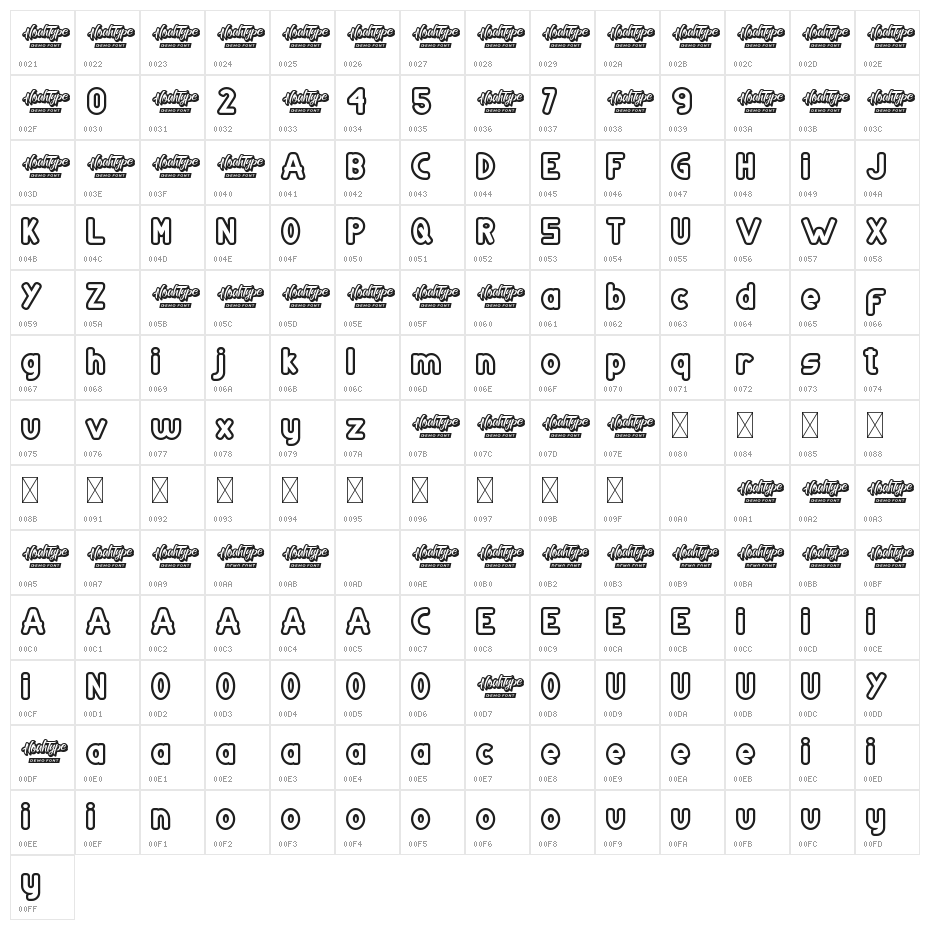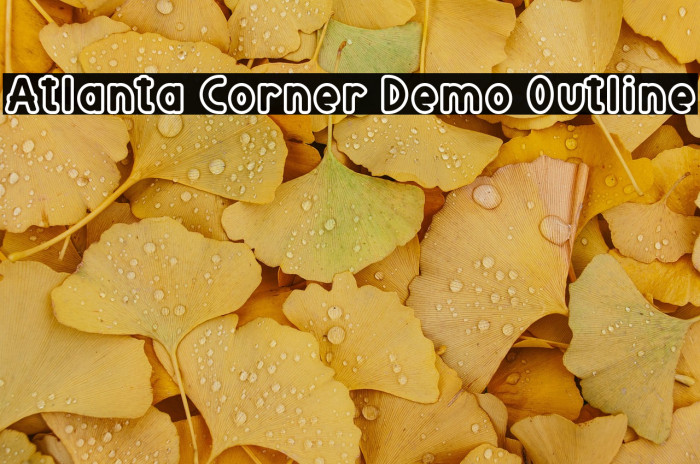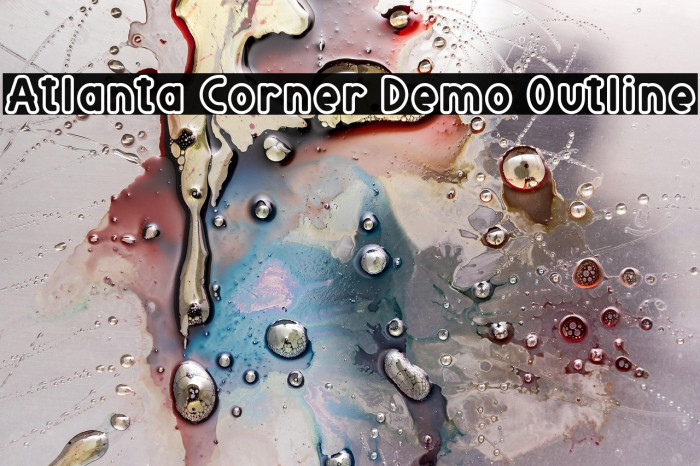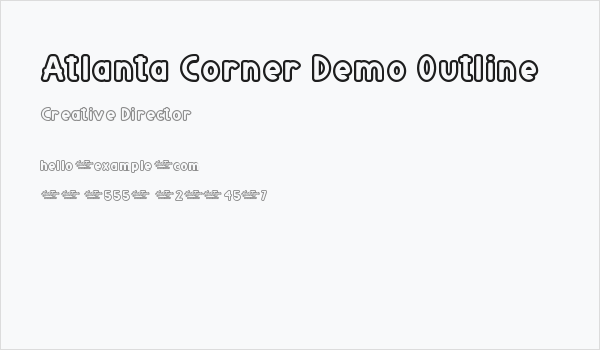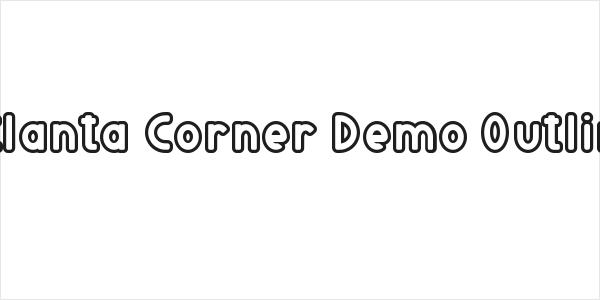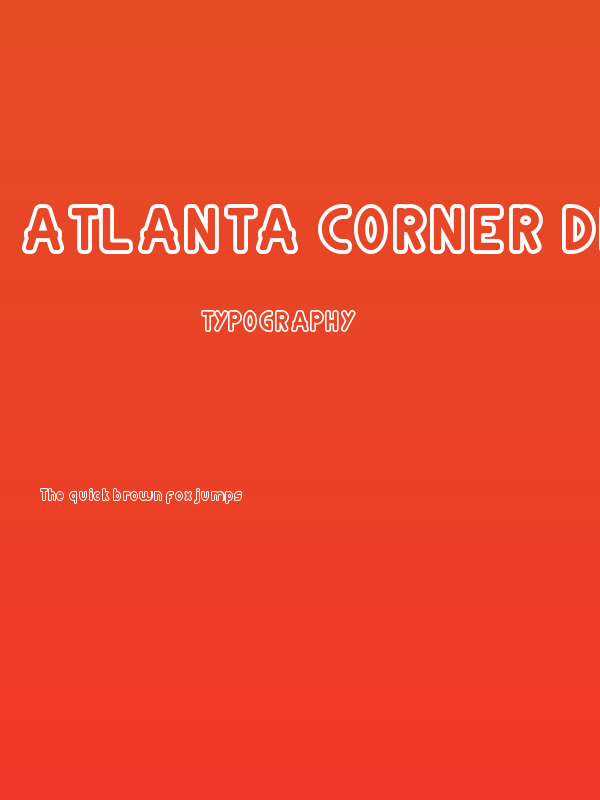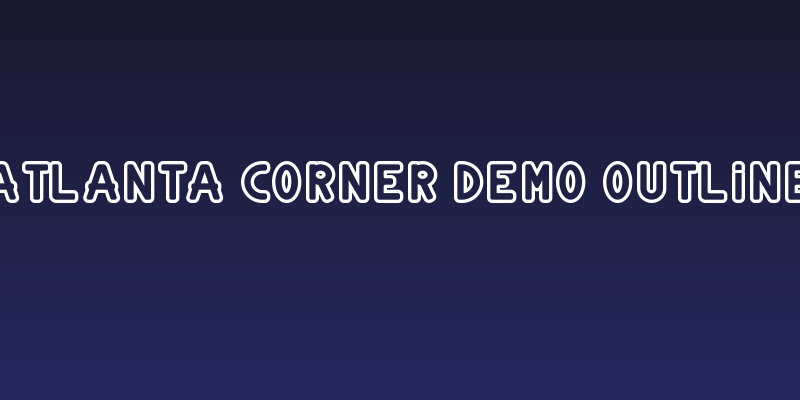
Atlanta Corner Demo Outline Font
Atlanta Corner Demo Outline Description
This font features a bold, outlined style with rounded edges, giving it a playful and approachable appearance. The uppercase and lowercase letters maintain a consistent thickness, creating a uniform look across all characters. The numbers and special characters follow the same design principles, ensuring a cohesive visual identity. The font's outline adds a unique dimension, making it stand out in various applications. Its clean and modern aesthetic makes it suitable for a variety of design projects, from branding to digital media.
| Proposed Projects | Ideal for branding, logos, posters, and digital media where a modern and playful look is desired. |